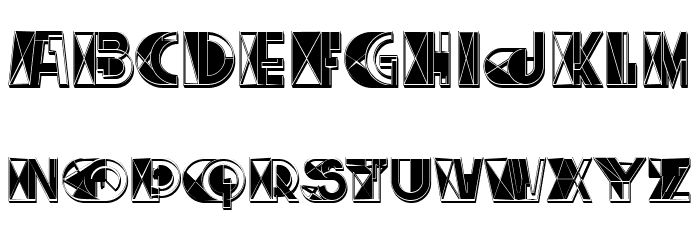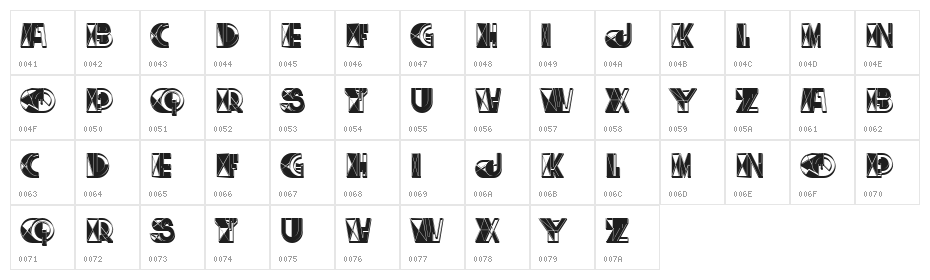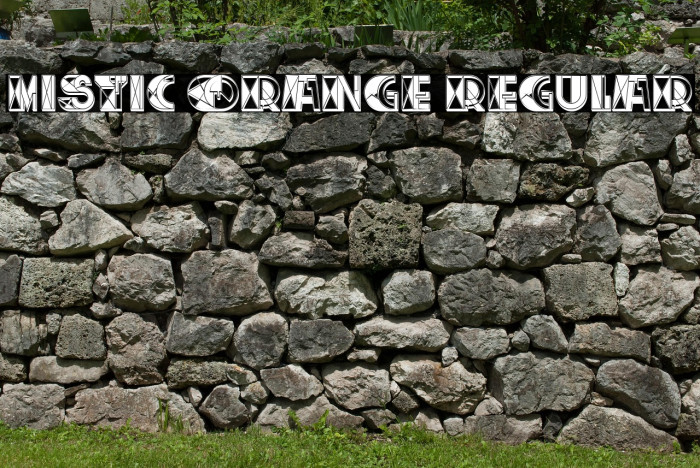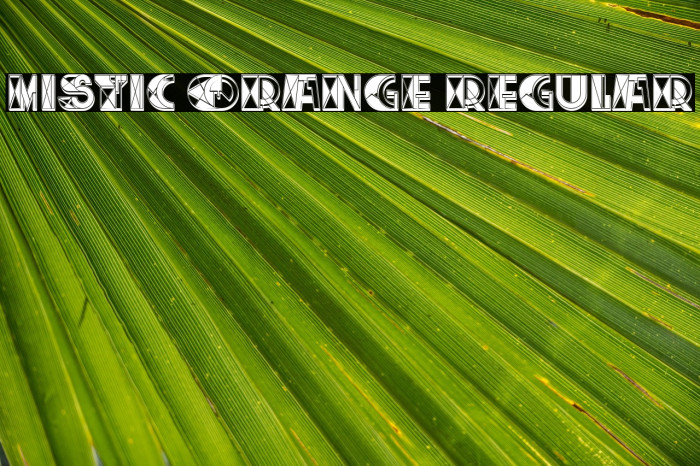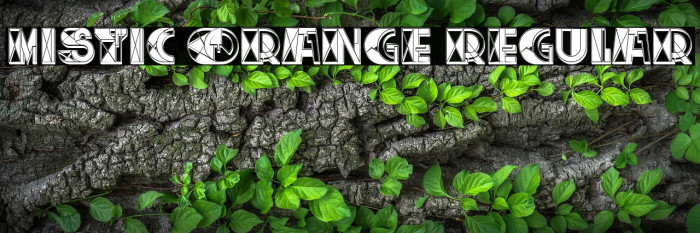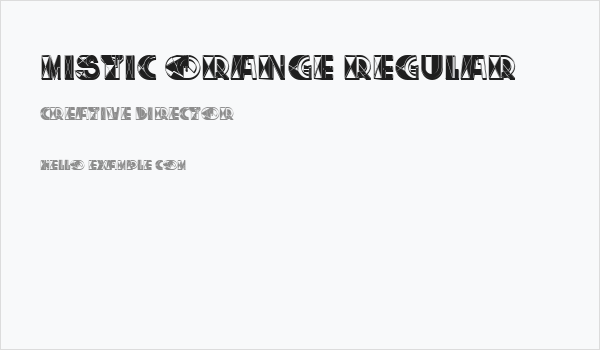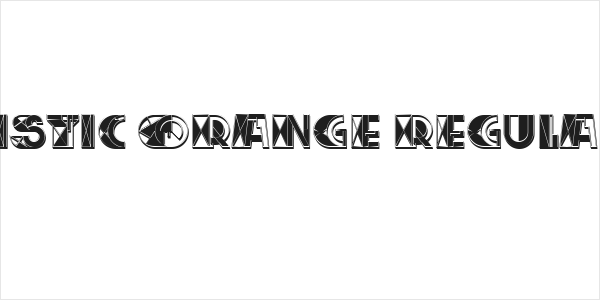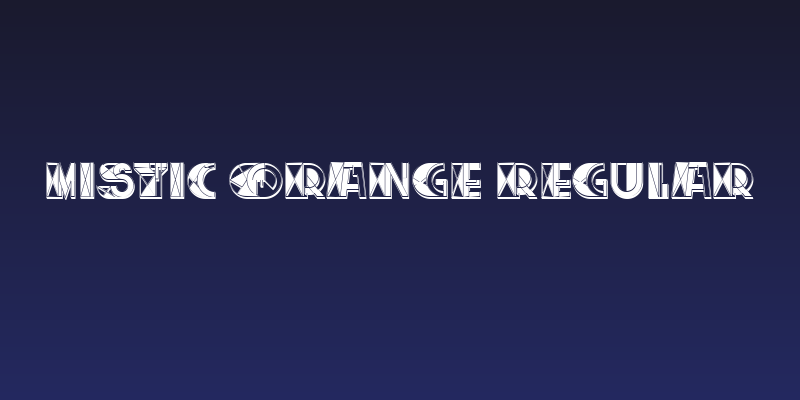
Mistic Orange Regular Font
Mistic Orange Regular Description
This font features a bold and geometric design with a distinct, modern flair. Each character is crafted with a combination of thick and thin lines, creating a high-contrast look that is both striking and visually engaging. The letters are constructed with angular shapes and sharp edges, giving them a futuristic and dynamic appearance. The overall style is decorative, making it ideal for projects that require a strong visual impact. The font's unique structure and bold presence make it suitable for headlines, posters, and branding materials where attention-grabbing typography is essential.
Use CaseHeadlines, Posters, Branding
Proposed ProjectsIdeal for use in branding, posters, headlines, and any project requiring a strong visual impact.